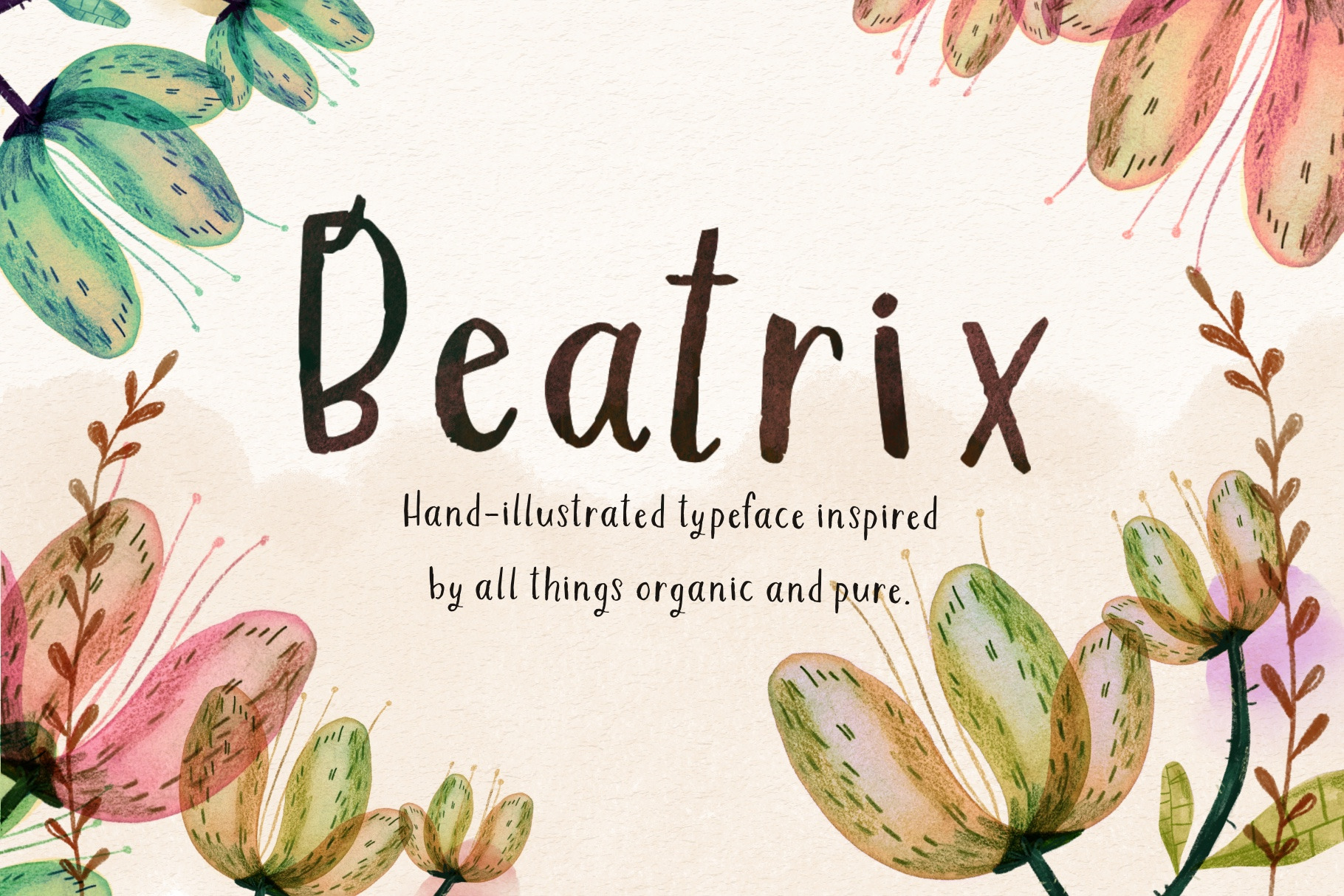
Beatrix Illustrated Typeface
I am so excited to share with you my latest typeface, Beatrix, named after the beloved children's book author and illustrator, Beatrix Potter.
A playful and eccentric typeface, Beatrix was inspired by children's stories of faraway lands.
Included are two versions: Beatrix and Beatrix Plain. Beatrix Plain is better suited to running text, and Beatrix is best used for display purposes.